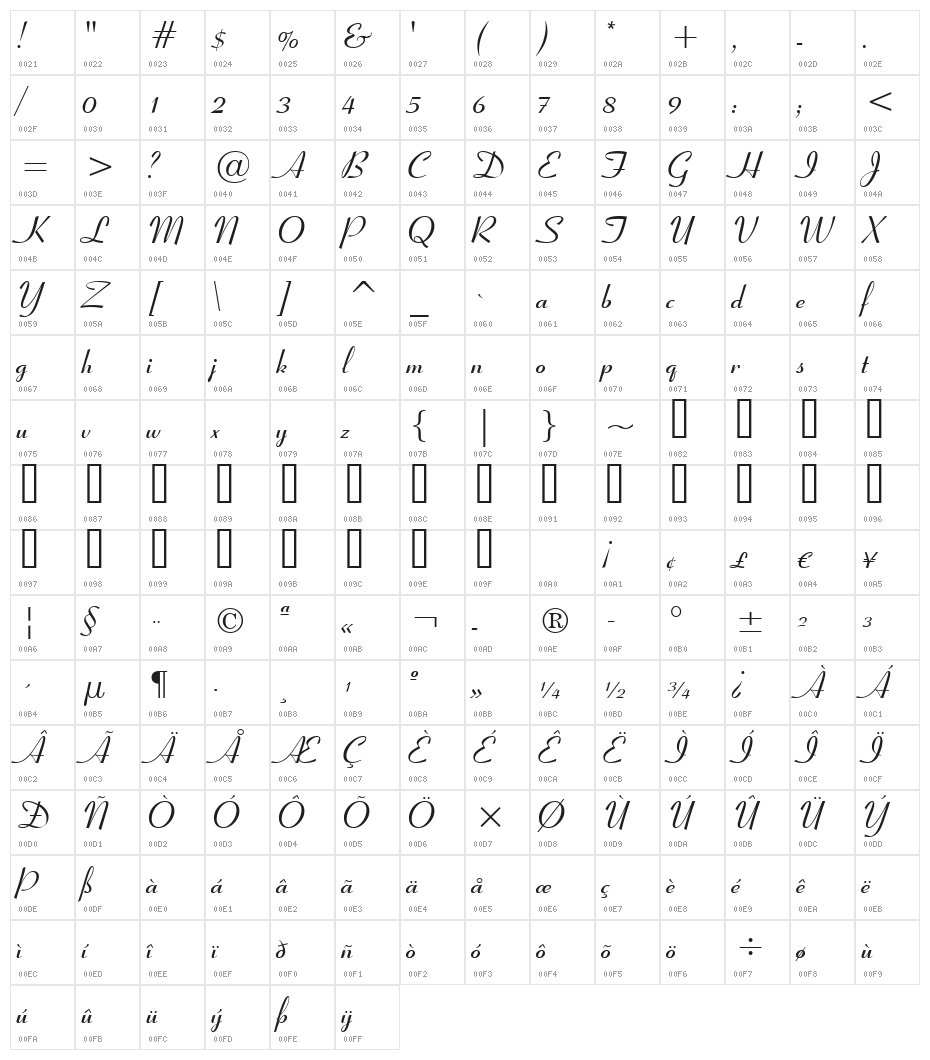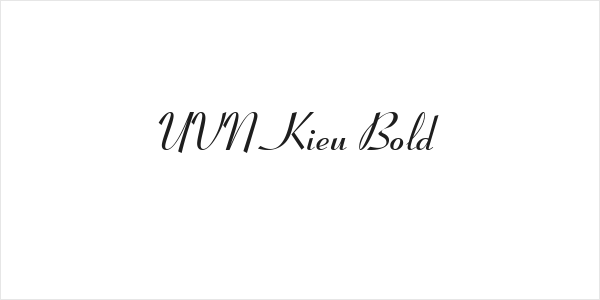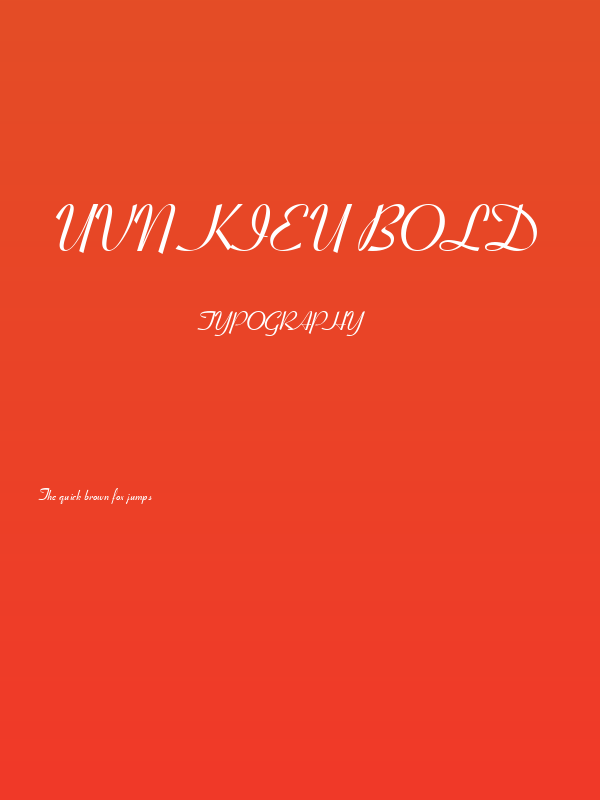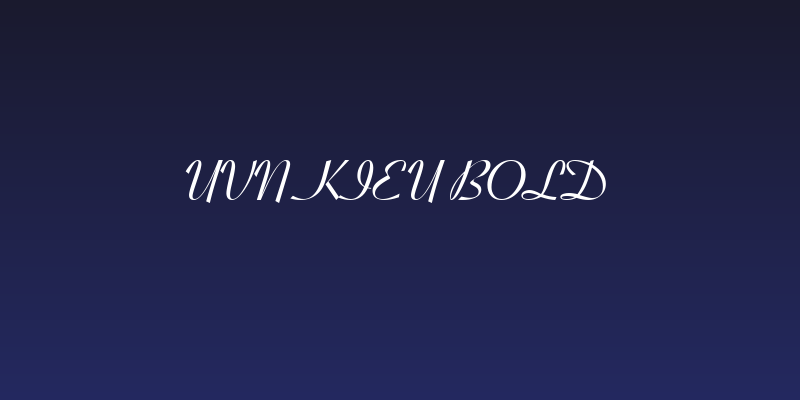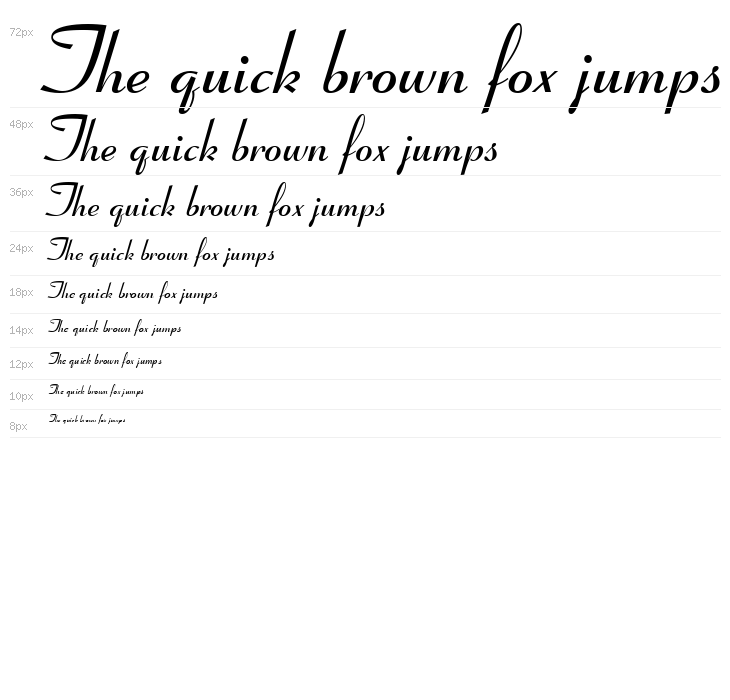
UVN Kieu Bold Font
UVN Kieu Bold Description
This elegant script font features a flowing, cursive style with a sophisticated flair. The uppercase letters are characterized by their sweeping, dramatic strokes, while the lowercase letters maintain a graceful continuity. The numerals are designed with a similar fluidity, ensuring a cohesive look across all characters. The special characters complement the overall aesthetic, adding versatility to the font. Its bold weight enhances its presence, making it suitable for impactful designs.
Overall StyleElegant
Use CaseLogos, Invitations, Decorative Text
Proposed ProjectsIdeal for wedding invitations, elegant branding, luxury product packaging, and decorative signage.